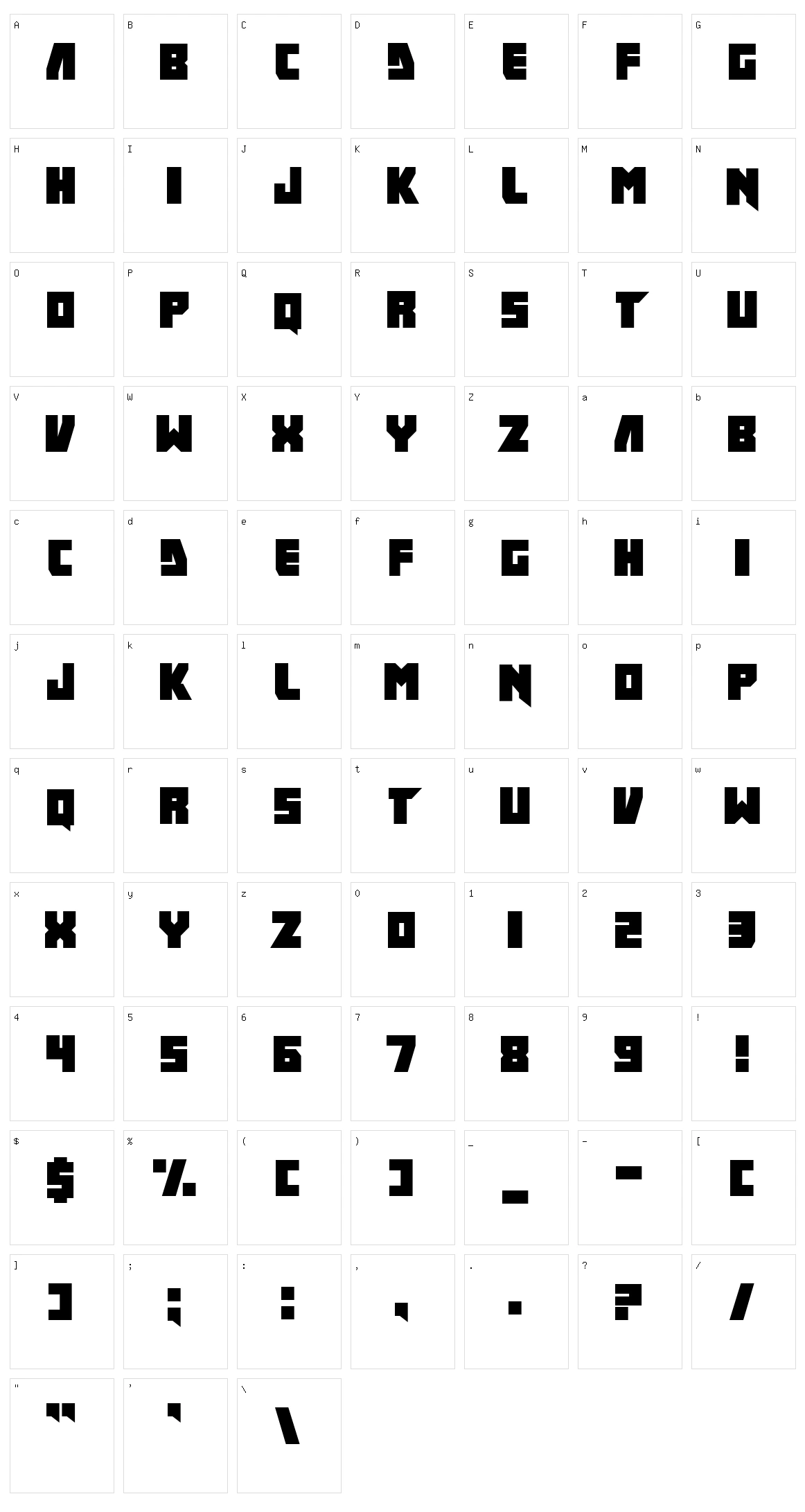
I FINK U FREEKY is inspired by lettering used by the band Die Antwoord and is absolutely free. Punctuation, numbers, symbols, accented characters and Cyrillic letters were freely added. If you want to get in touch, please contact me: contact@fthafm.com